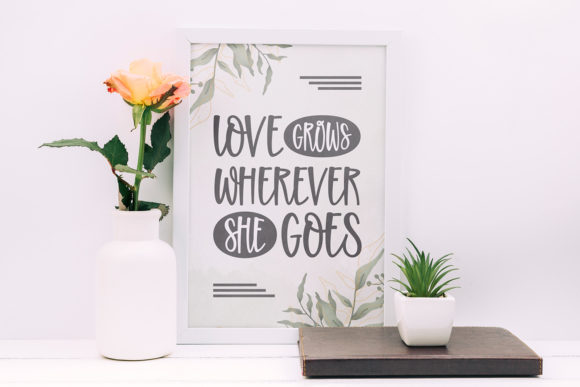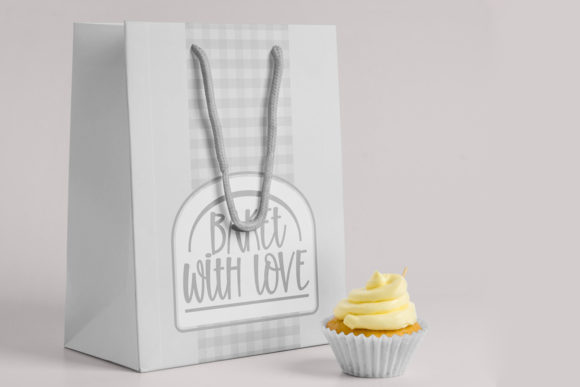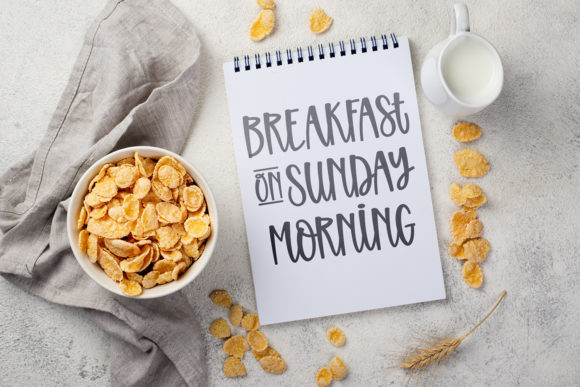
Introduction to Collect Moment Font
Collect Moment is a casual and quirky handwritten font.
Key Features of Collect Moment Font
Why Choose Collect Moment Font?
Collect Moment Font offers exceptional quality and versatility, making it a valuable addition to your design toolkit. Whether you’re creating for personal projects or commercial use, Collect Moment Font delivers professional results.